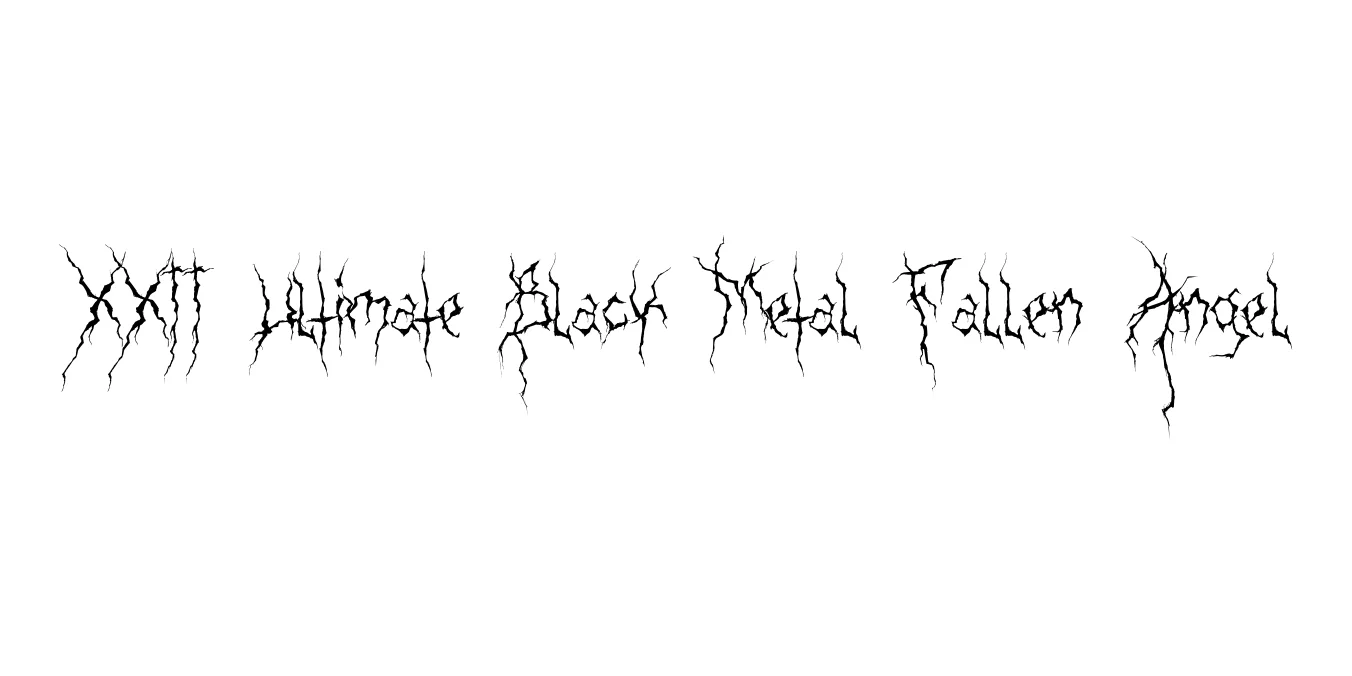
XXII Ultimate-Black-Metal Fallen-Angel
Designed by Lecter Johnson
XXII Ultimate-Black-Metal Fallen-Angel is a specialized display font designed by Lecter Johnson, specifically tailored to meet the extreme aesthetic demands of the underground black metal scene. This typeface is characterized by its aggressive, thorn-like extensions and symmetrical structures that intentionally push the boundaries of legibility to achieve a raw, atmospheric look synonymous with the genre's visual identity.
The "Fallen-Angel" variant stands out due to its needle-sharp terminals and intricate, web-like connections between characters. It has become a go-to resource for graphic designers and musicians looking to create authentic logos, album art, and merchandise that resonate with the dark, chaotic energy of black and death metal subcultures.
XXII Ultimate-Black-Metal Fallen-Angel Best Uses
Perfect for creating complex, symmetrical logos for extreme metal musical projects.
Excellent for streetwear and band merchandise designs requiring an edgy, underground vibe.
Ideal for the cover art of black metal or death metal records where aesthetic atmosphere is paramount.
Well-suited for dark, atmospheric event posters and underground concert flyers.